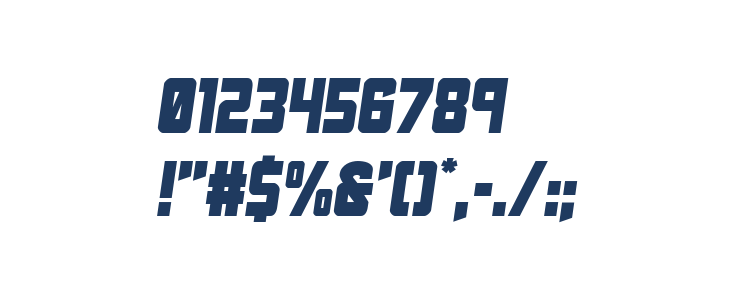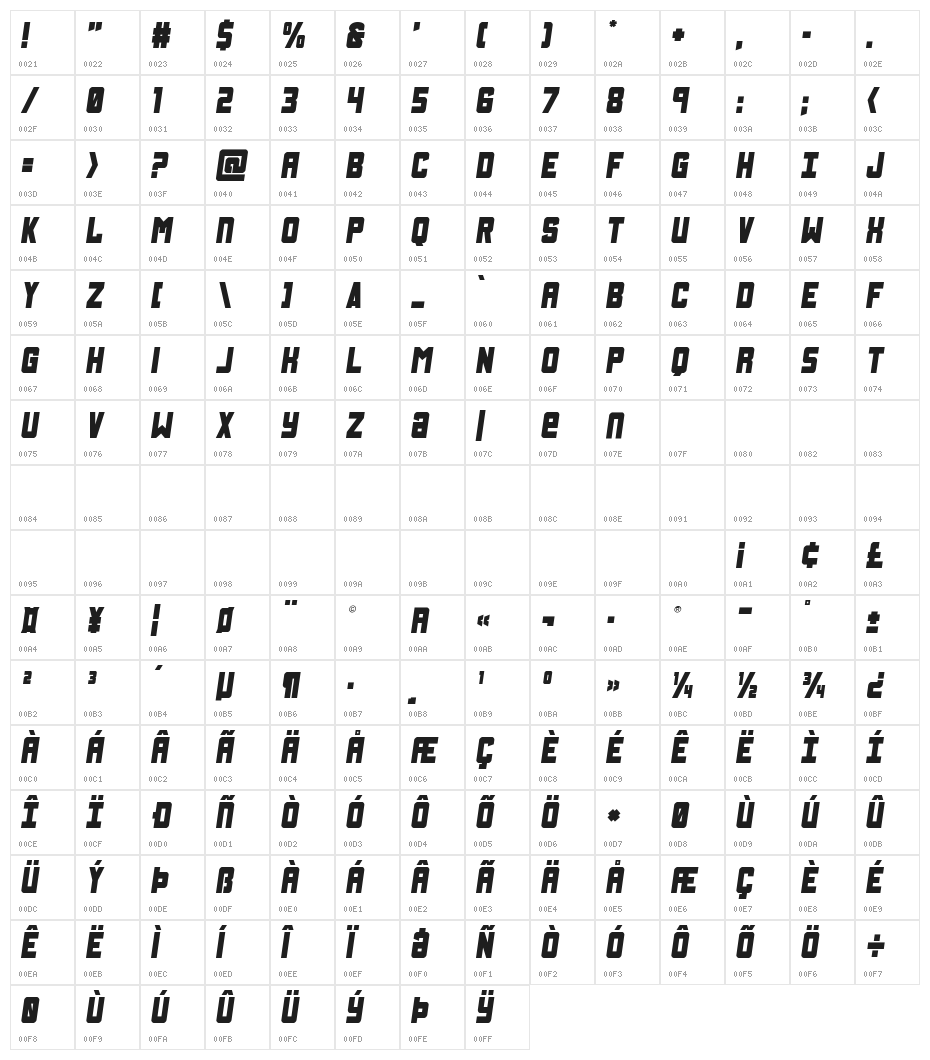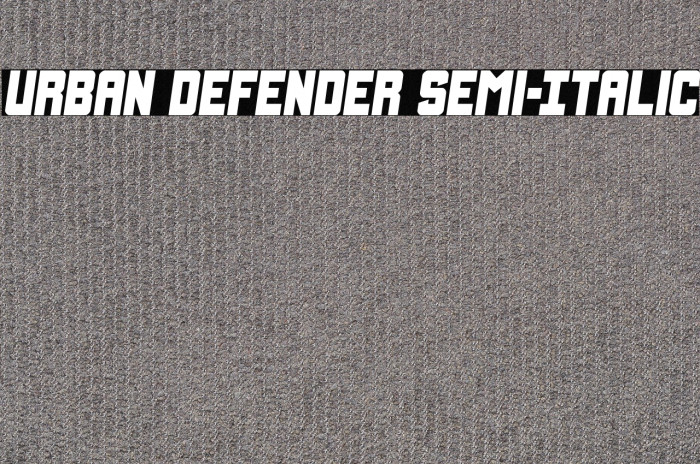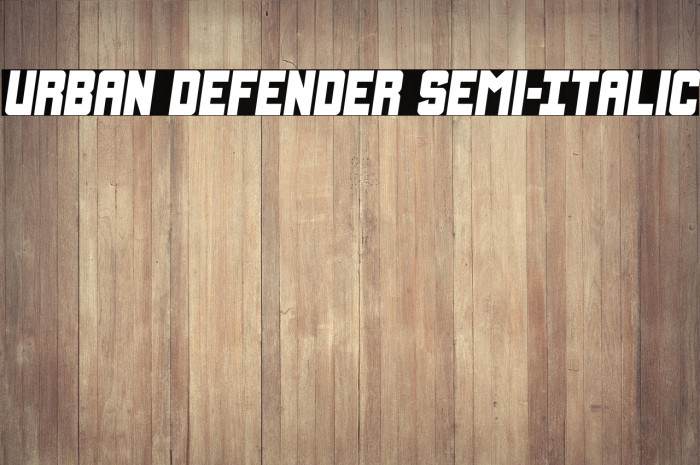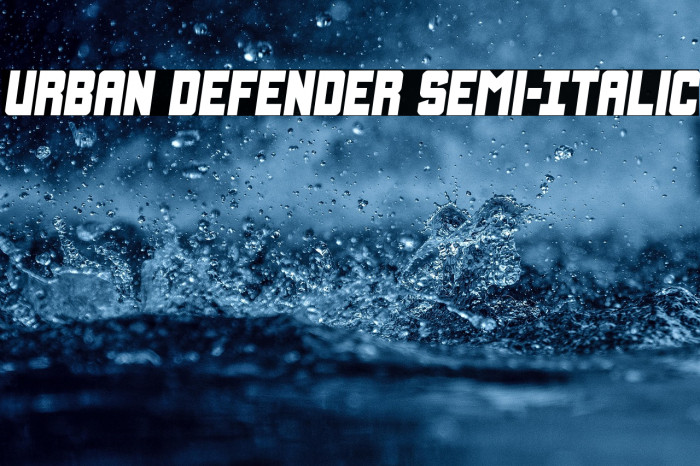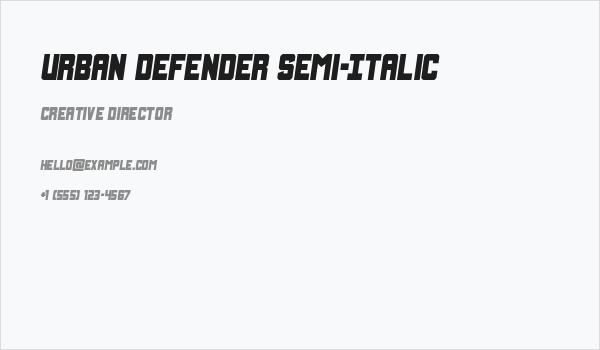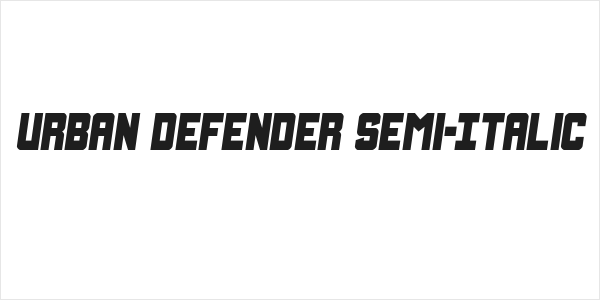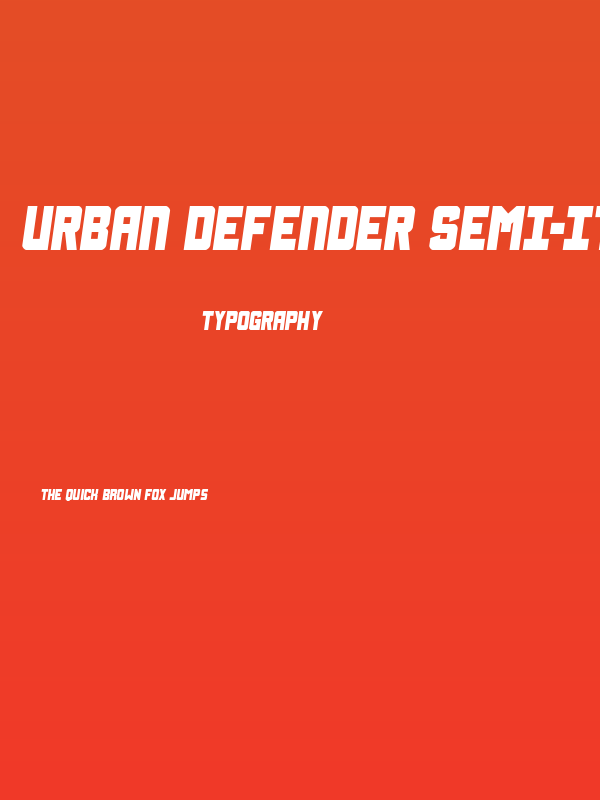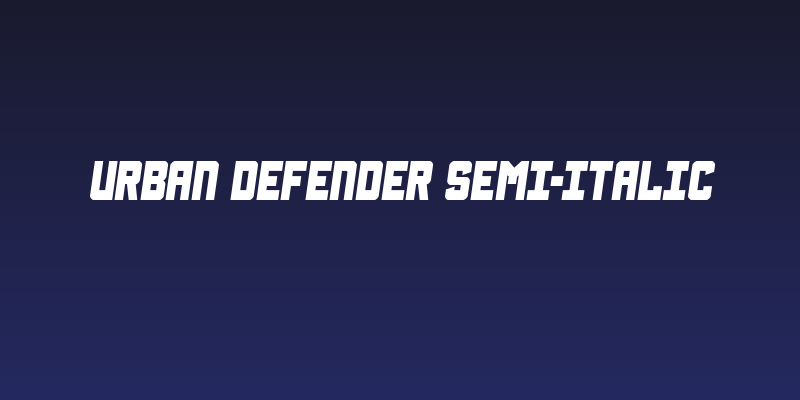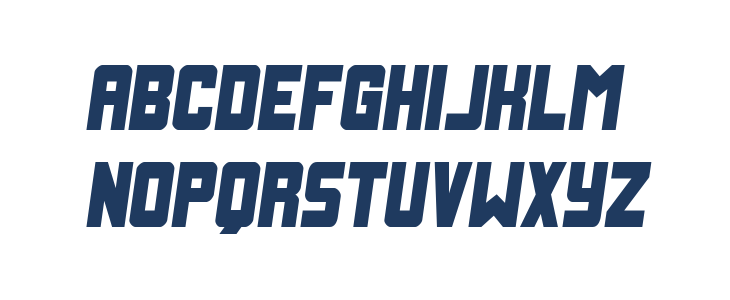
Urban Defender Semi-Italic Font
Urban Defender Semi-Italic Description
This font features a bold, semi-italic style with a strong, urban aesthetic. The characters are blocky and angular, giving a sense of strength and modernity. The uppercase letters are particularly striking, with a slight forward slant that adds dynamism and movement. The numbers and special characters maintain the same boldness, ensuring consistency across all text elements. The font's design is clean and impactful, making it suitable for projects that require a strong visual presence. Its geometric shapes and sharp edges contribute to a contemporary feel, while the semi-italic slant provides a unique twist on traditional bold fonts.